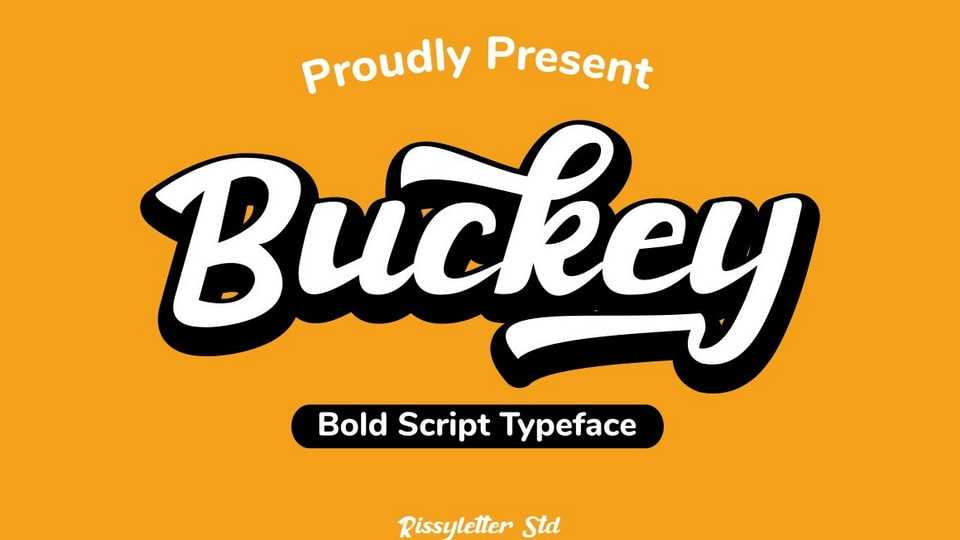
Download Buckey font, a bouncy and quirky handwritten typeface with a retro vibe. Buckey font will add a fresh and contemporary touch to your designs.
Designer: Rissyletter Studio